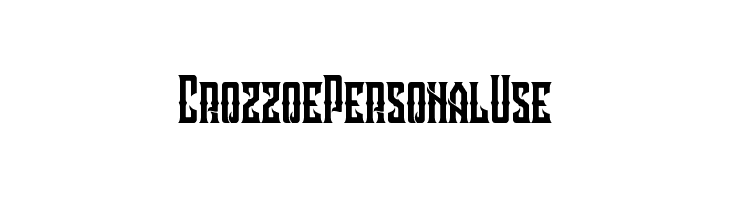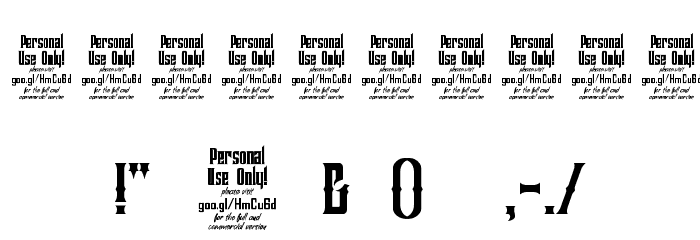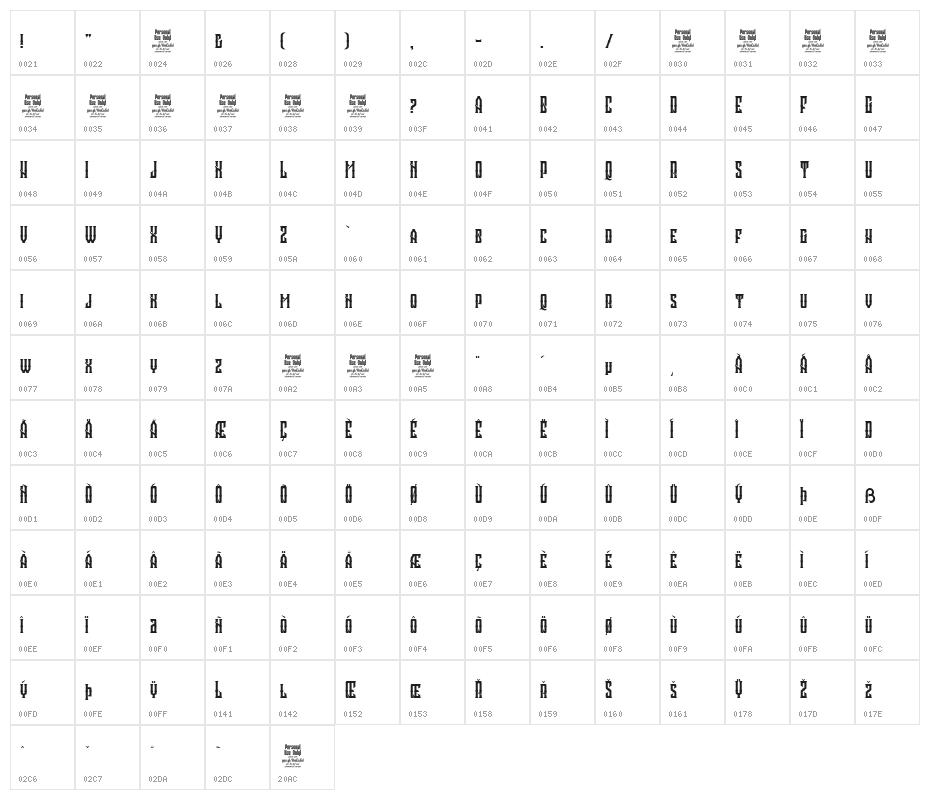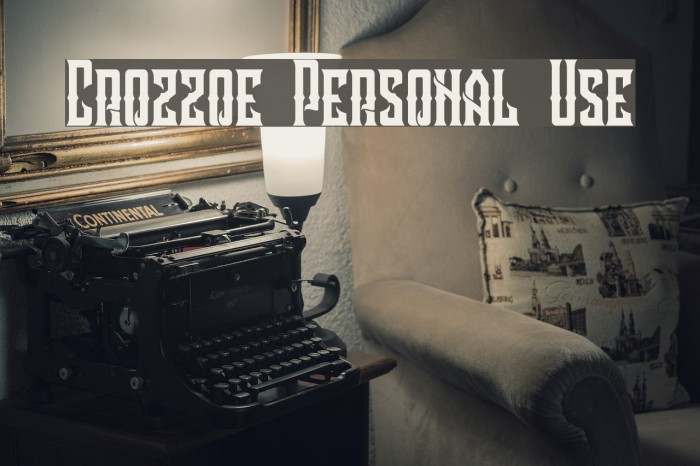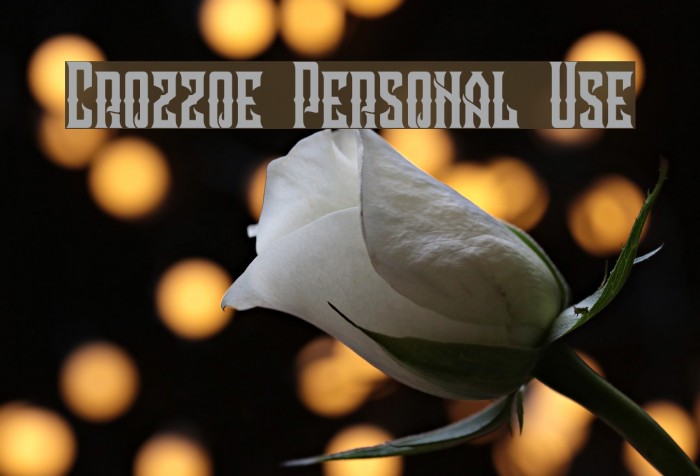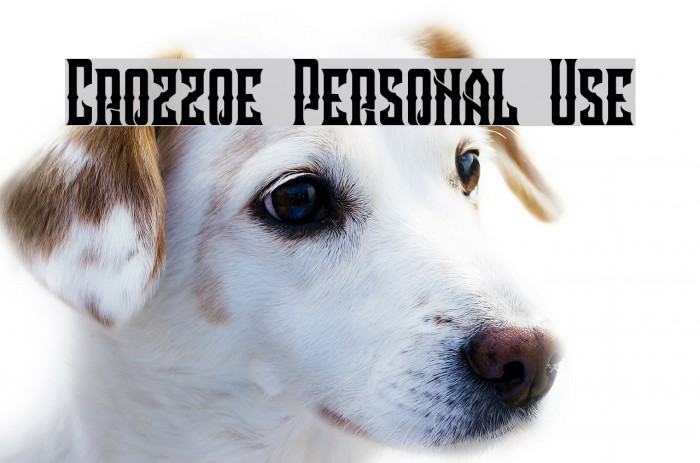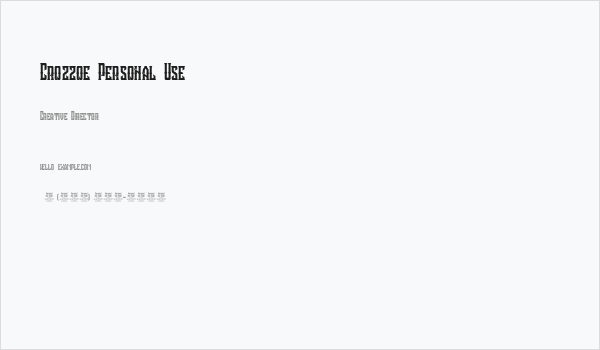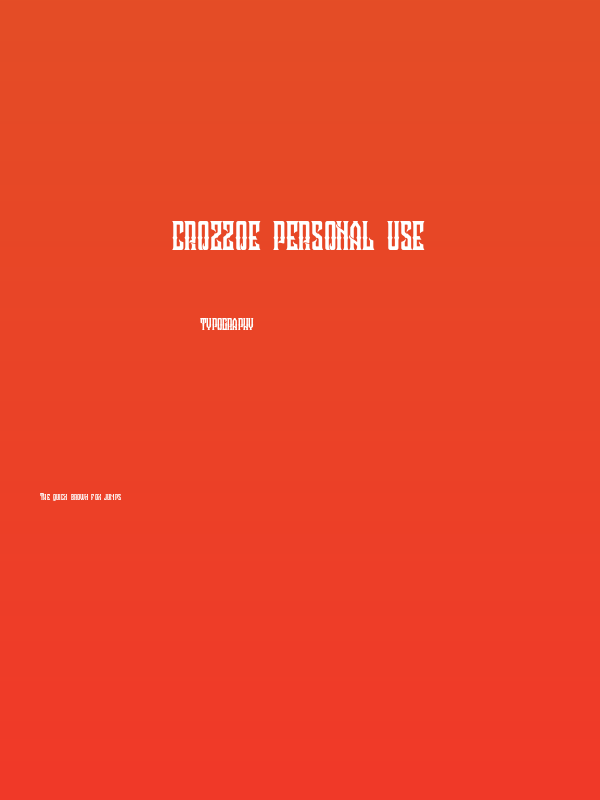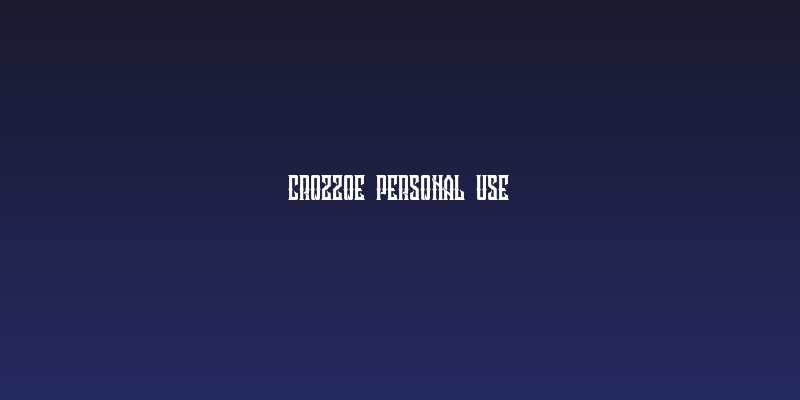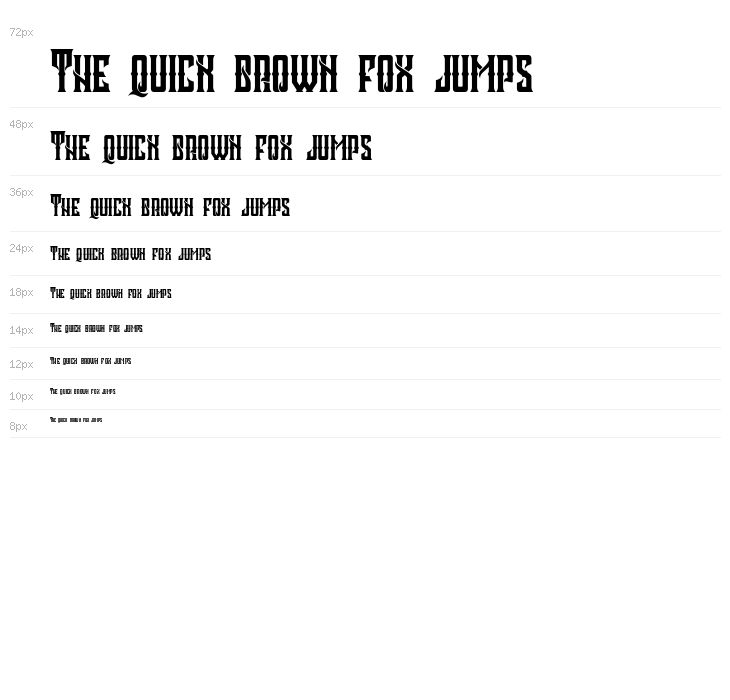
Crozzoe Personal Use Font
Crozzoe Personal Use Description
This font features a bold and striking design with sharp, angular edges and a distinct Gothic influence. The uppercase letters are tall and narrow, with intricate details that give them a unique, decorative appearance. The lowercase letters maintain the same stylistic elements, ensuring consistency across the typeface. Numbers and special characters are crafted with the same attention to detail, making them stand out. The overall aesthetic is both modern and vintage, suitable for projects that require a strong visual impact.
| Overall Style | Modern, Vintage |
| Proposed Projects | Ideal for branding, poster design, album covers, and any project needing a bold, impactful typeface. |